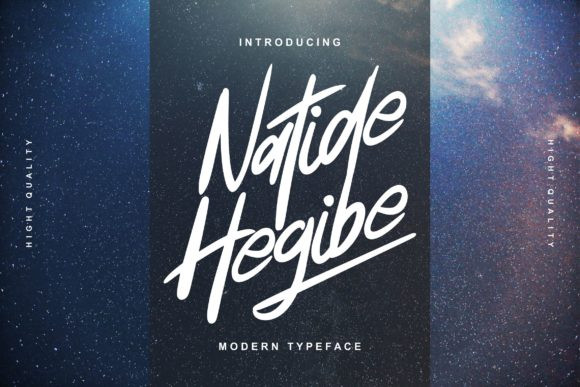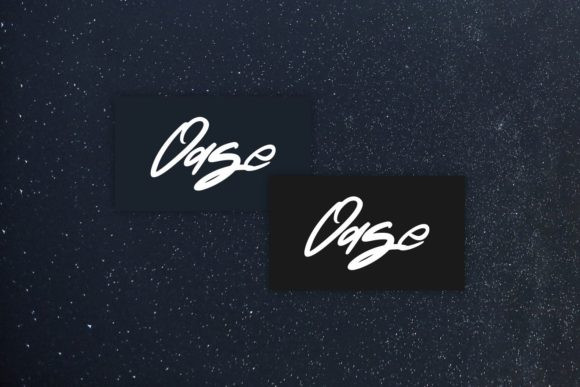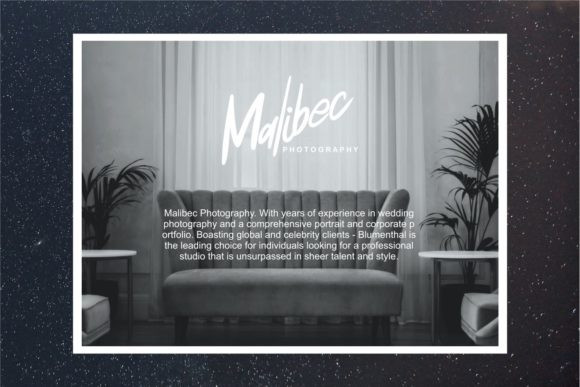
Natide Hegibe Font
Natide Hegibe feels equally charming and elegant. This stunning handwritten font is a stylish homage to classic calligraphy. Whether you’re looking for fonts for Instagram or calligraphy scripts for DIY projects, Natide Hegibe will turn any creative idea into a true piece of art!